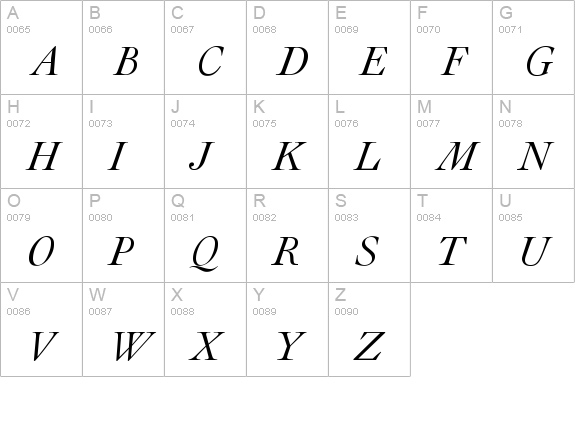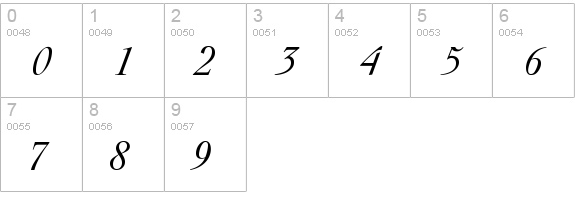
Le Cochin Italic is a distinctive, italic variant in the Le typeface family \xE2\x80\x94 well suited to design and typography projects.
Le Cochin Italic is a captivating and elegant font that seamlessly blends sophistication with a touch of playfulness. With its graceful curves and refined details, this font exudes a sense of timeless beauty and charm. Designed with the utmost attention to detail, Le Cochin Italic captivates the eye with its sleek and slender letterforms. Each character is meticulously crafted to create a harmonious and fluid visual experience. The italicized slant adds a dynamic and energetic flair to the font, making it perfect for conveying a sense of movement and excitement. This font is versatile and adaptable, making it suitable for a wide range of design projects. Whether used in logos, headlines, or body text, Le Cochin Italic adds a touch of sophistication to any composition. Its legibility and readability ensure that your message is conveyed with clarity and impact. One of the standout features of Le Cochin Italic is that it is completely free to download. With just a few clicks, you can access this exceptional font and bring your design ideas to life. Simply head over to FontsMarket.com and discover the beauty and elegance of Le Cochin Italic. So, if you're looking to add a touch of refined elegance to your designs without breaking the bank, Le Cochin Italic is the perfect choice. Download it today and let your creativity soar.